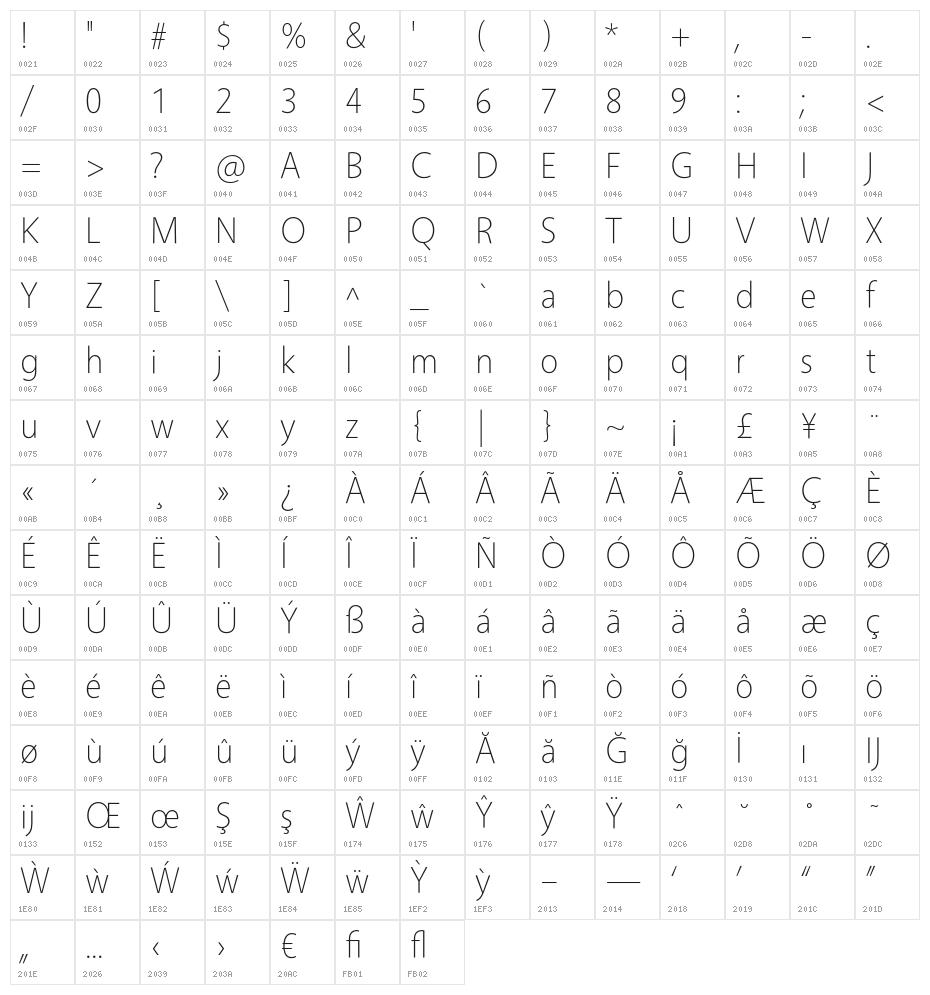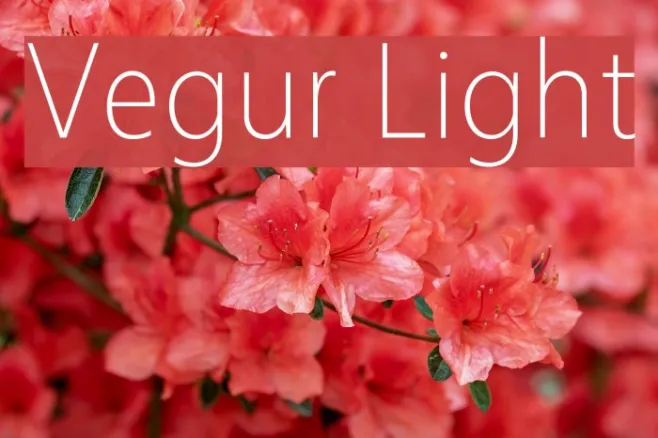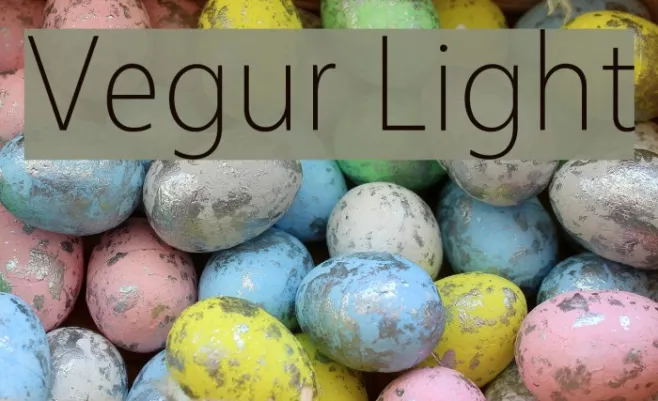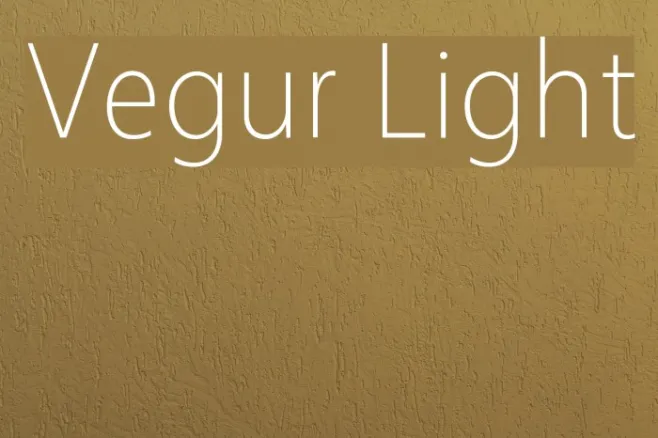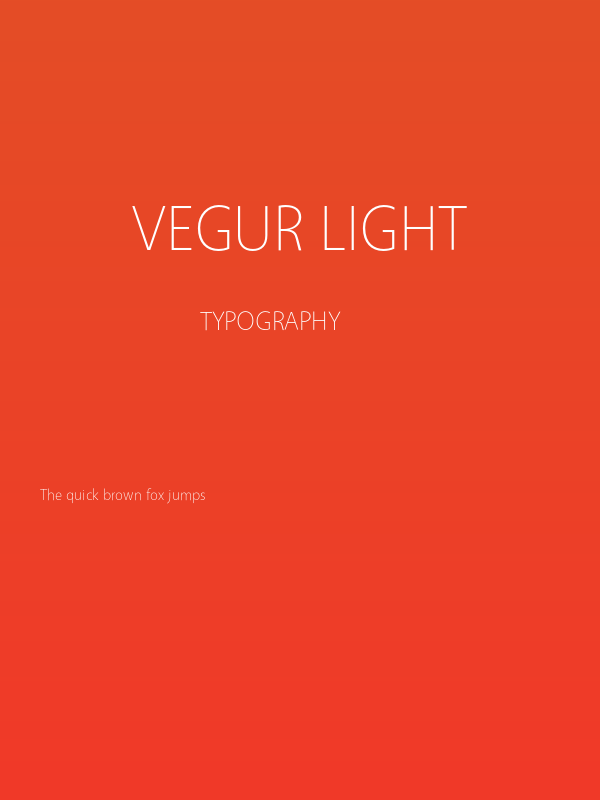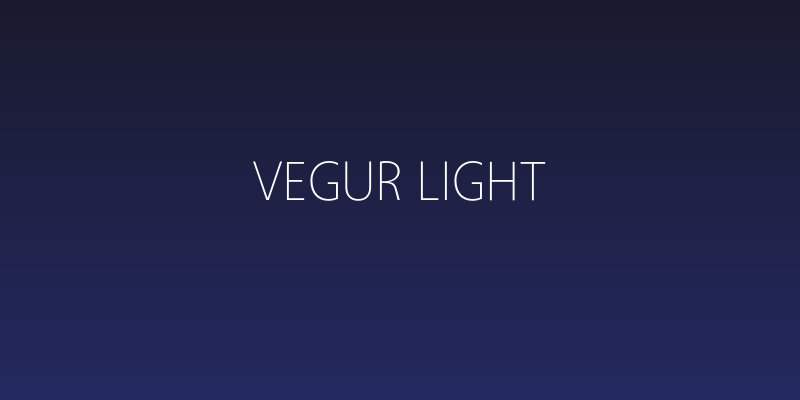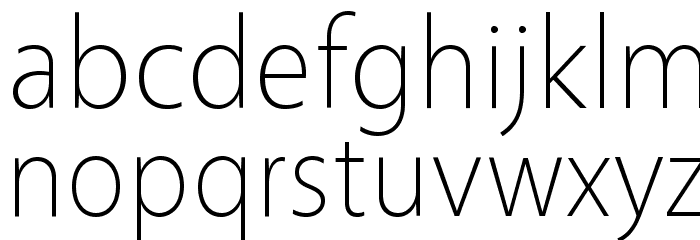
Vegur Light Font
Vegur Light Description
This typeface features a clean and modern design with a light weight, emphasizing simplicity and readability. The characters are well-proportioned with a consistent stroke width, giving it a sleek and elegant appearance. The uppercase letters are tall and slightly narrow, while the lowercase letters maintain a harmonious balance with rounded edges. The numerals are clear and distinct, making them easy to read. Special characters are designed with the same minimalist approach, ensuring they blend seamlessly with the rest of the font. Overall, this font exudes a contemporary and professional vibe, suitable for various design applications.
| Proposed Projects | Ideal for branding, editorial design, websites, and corporate materials where a modern and professional look is desired. |